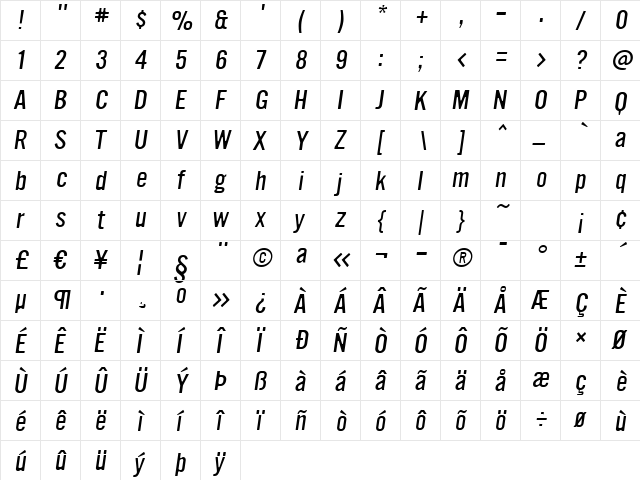
Ultramagnetic LightOblique Font Preview
| Style | LightOblique |
| Foundry | YouWorkForThem |
| Designer | Michael Cina |
Design Context for Ultramagnetic Typeface
Ultramagnetic takes a measured approach to typography — its balanced proportions and neutral character make it a reliable workhorse for both digital and print work. The dynamic lean of this cut emphasises speed and emphasis in any layout. Its slender proportions lend an understated elegance to any composition.